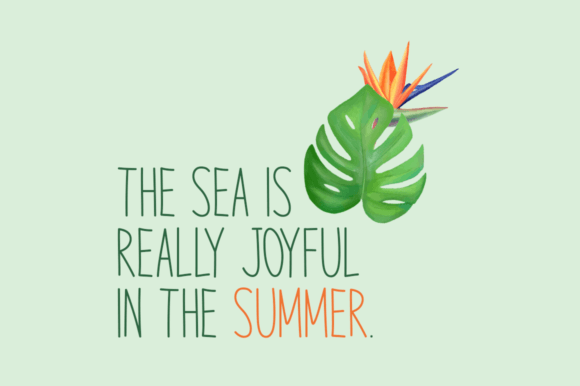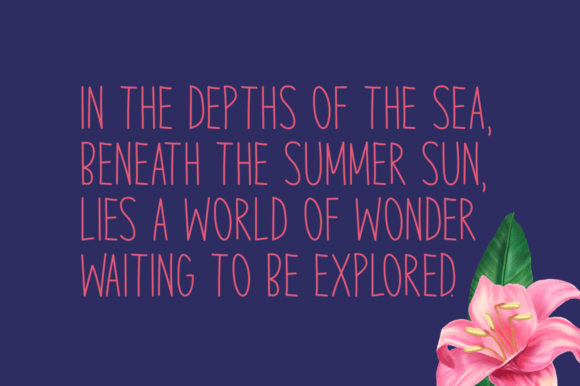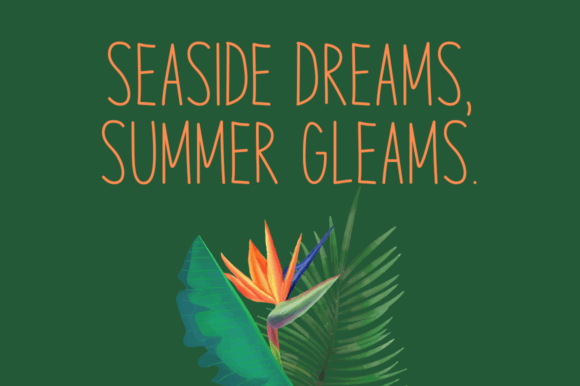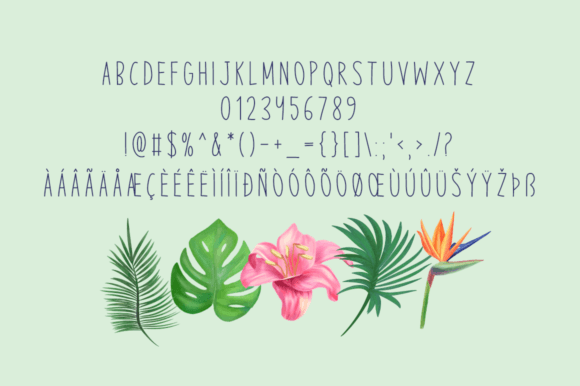
Introduction to Seaside Charm Font
Remember that moment when you’re brainstorming ideas for your next creative project and you just can’t find the right font to bring it all together? You’ve scoured the web, browsed through design libraries, and experimented with various styles, but nothing seems quite right. That’s where the Seaside Charm Font comes in – a high-quality, free download that’s about to revolutionize your design process.
As a designer, you’re constantly on the lookout for unique and versatile design resources that can elevate your work. The Seaside Charm Font fits the bill perfectly, offering a simple yet charming handwritten style that can be used across a wide range of creative projects. From social media graphics to blog posts, and even product packaging, this font is sure to add a touch of personality to your designs.
Key Features of Seaside Charm Font
- High-quality design for a creative project, perfect for any water-inspired theme.
- Available in a transparent background option for seamless integration into any design.
- Includes a range of glyphs, making it suitable for a variety of applications, from logos to body text.
Honest Review: Seaside Charm Font
I recently had the chance to work with the Seaside Charm Font on a creative project, and I must say it’s been a delightful experience. This font has all the makings of a high-quality design resource – elegant, refined, and versatile.
- The font’s transparent background makes it easy to integrate into various design projects.
- The high-quality vector graphics ensure crisp and clear rendering on all devices.
- The font’s classic, vintage aesthetic lends itself perfectly to a wide range of creative applications.
The main limitation of the Seaside Charm Font is its relatively limited character set. While it’s perfect for headings and titles, it may not be suitable for extended blocks of text.
Overall, I’m thoroughly impressed with the Seaside Charm Font. Its unique blend of elegance and versatility makes it an excellent addition to any designer’s toolkit. With its transparent background, high-quality graphics, and free download option, it’s a must-have for any creative project.
How to Use Seaside Charm Font
Seaside Charm Font Overview
The Seaside Charm Font is a high-quality design resource ideal for creative projects. Its elegant and refined aesthetic makes it perfect for a wide range of applications, from wedding invitations to brand logos.
Tips for Getting the Most Out of Seaside Charm Font
For best results, use the Seaside Charm Font in conjunction with a transparent background to create a seamless and elegant design. Experiment with different font sizes and styles to achieve the desired look and feel.
The Seaside Charm Font is ideal for a wide range of applications, including:
- Brand logos and marketing materials
- Event invitations and announcements
- Personalized gifts and stationery